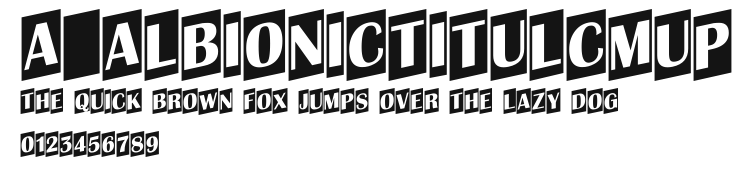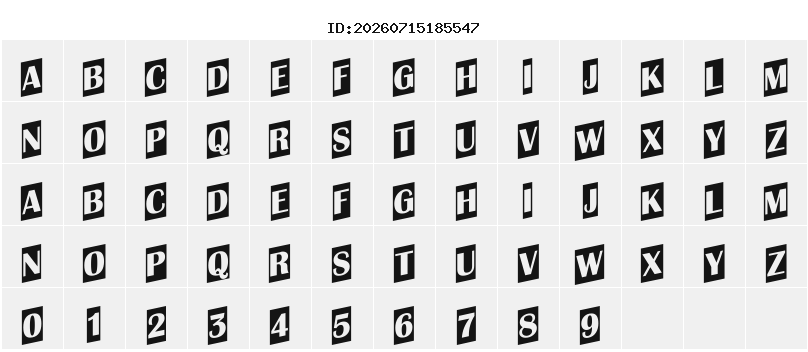
a_AlbionicTitulCmUp.ttf is a modern, elegant sans-serif font designed for ultimate readability and visual harmony. Perfect for branding, headlines, web design, and print materials.